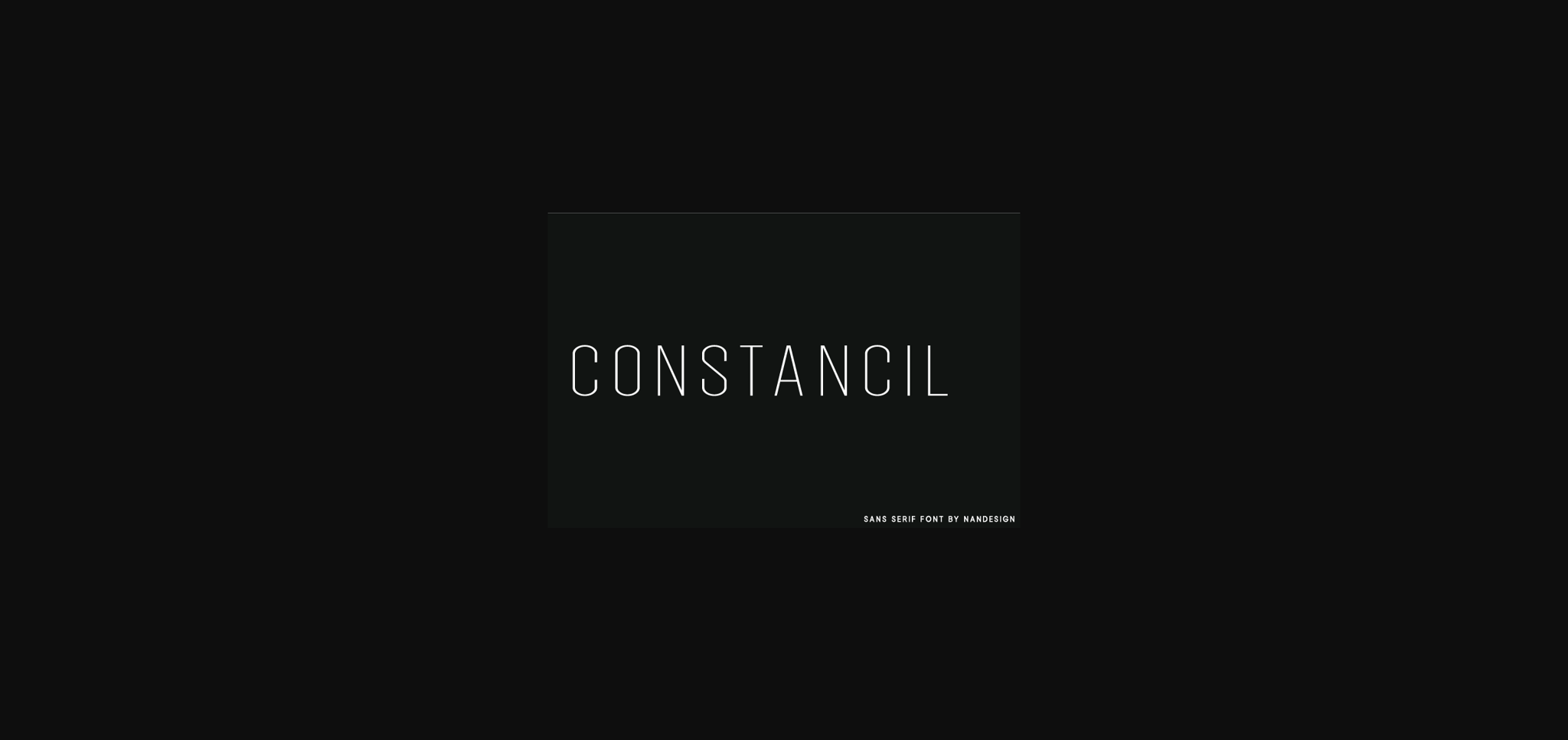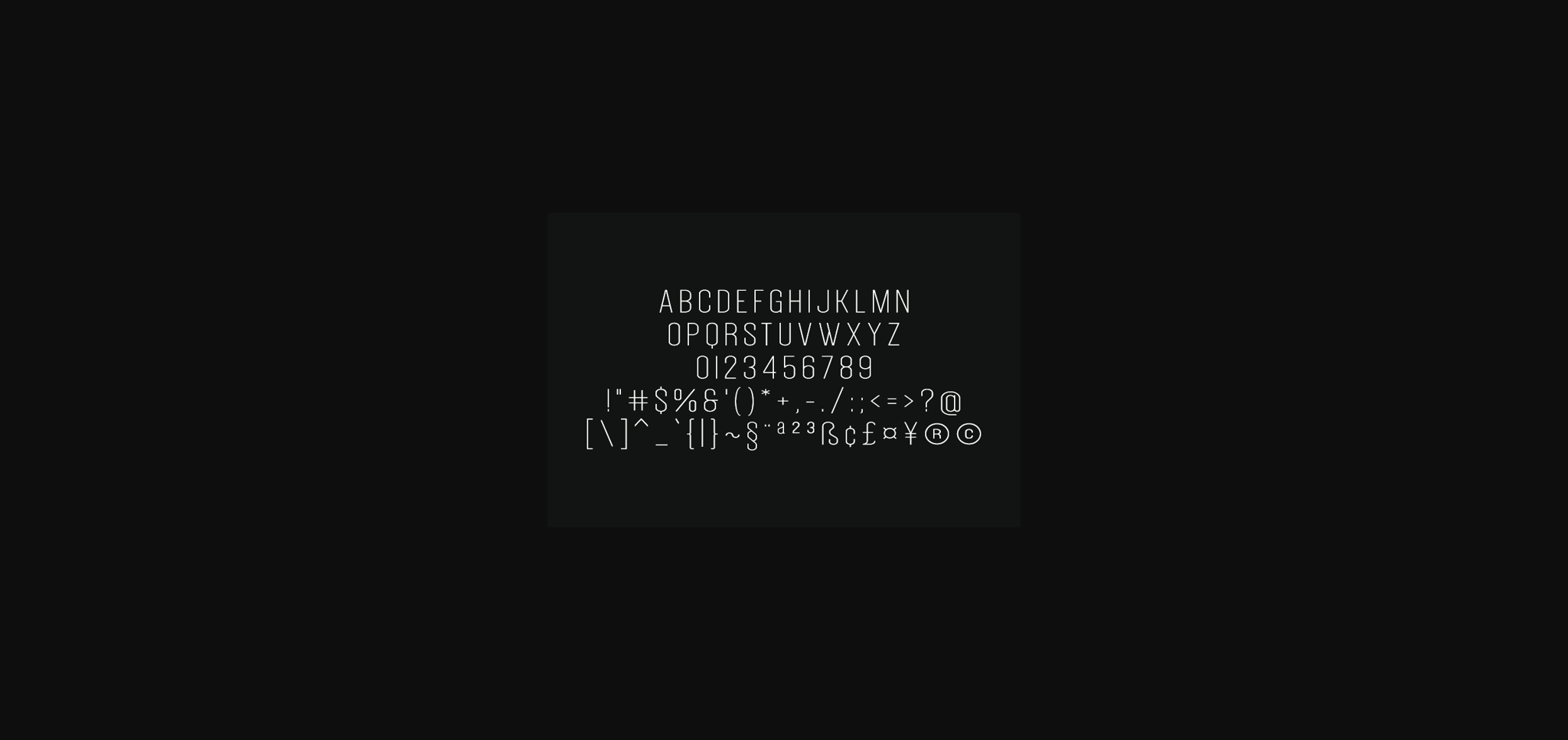
About Constancil Font
Constancil is a magical sans serif font carefully created with a touch of elegance. Use this modern font to bring any DIY project to life!